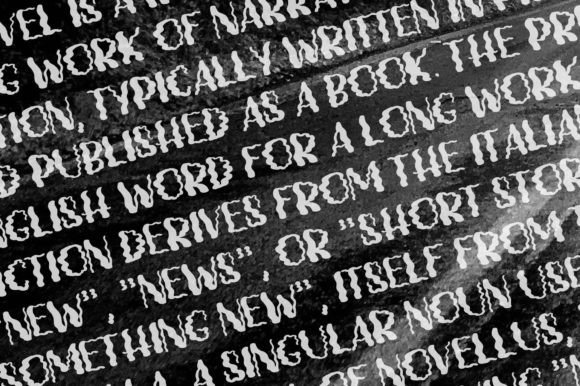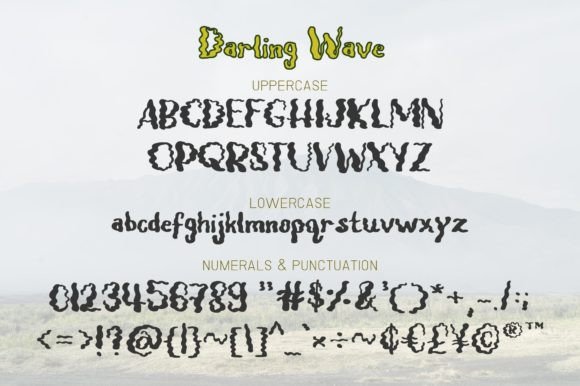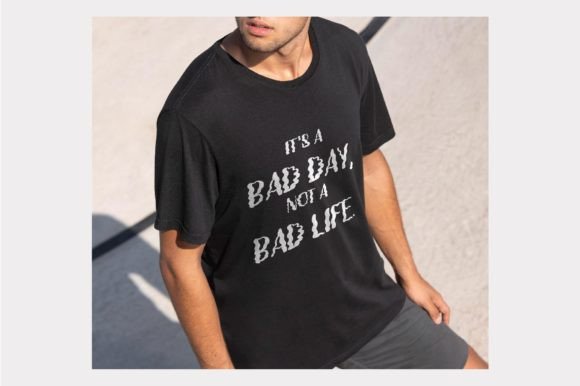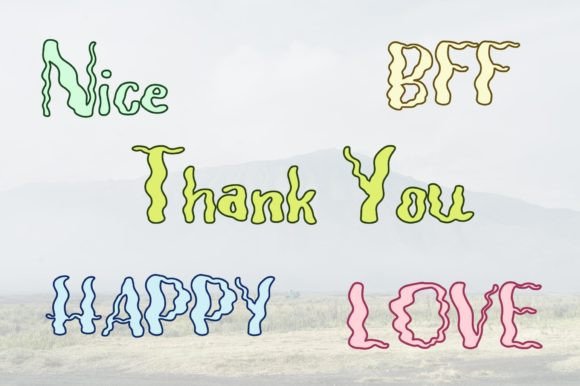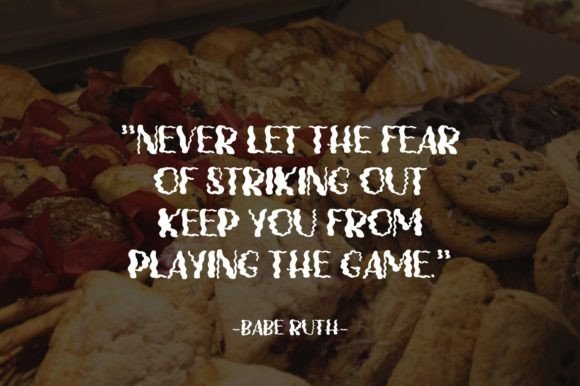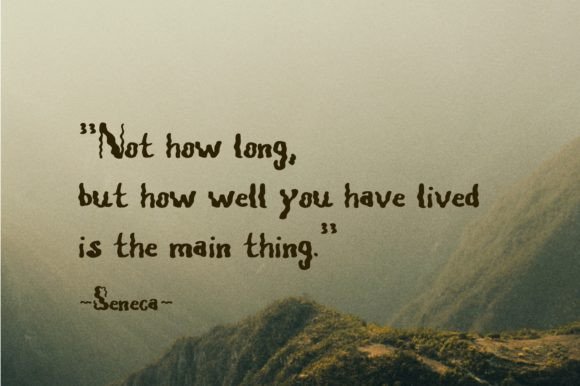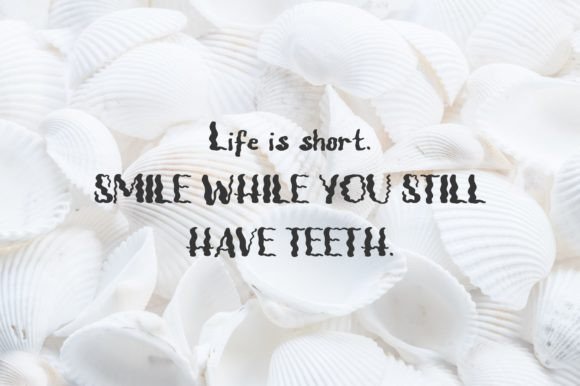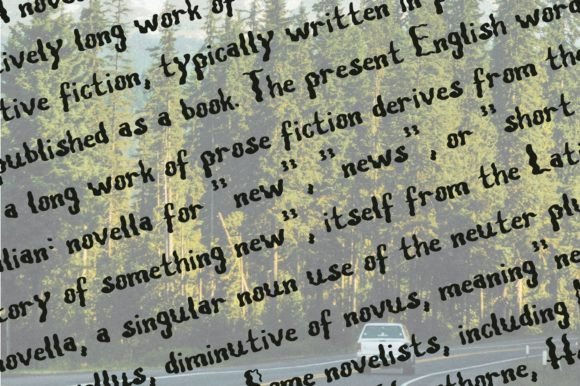
Darling Wave Font
About Darling Wave Font
Darling Wave, with its unique and whimsical handwritten style, brings a touch of creativity and interest to your designs. Whether you’re working on quotes, logos, or any lettering product, Darling Wave is crafted to make your creative ideas stand out and shine.
The font’s whimsical nature adds a playful and distinctive quality to your designs. It’s perfect for projects that demand a creative and eye-catching touch, ensuring that your work captures the attention of your audience.
Darling Wave is not just a font; it’s a creative tool that enhances the visual appeal of your projects. Its unique and interesting design allows for a wide range of applications, giving you the flexibility to experiment and explore different design possibilities.
From quotes that pop on social media to logos that stand out with character, Darling Wave is ready to infuse your projects with a sense of creativity and individuality. Let it be the element that makes your designs memorable and captivating.
Whether you’re a designer looking to add a unique flair to your work or someone embarking on a personal creative project, Darling Wave is a font that invites you to explore and express your creativity. Let its whimsical charm be the spark that elevates your designs to new heights.